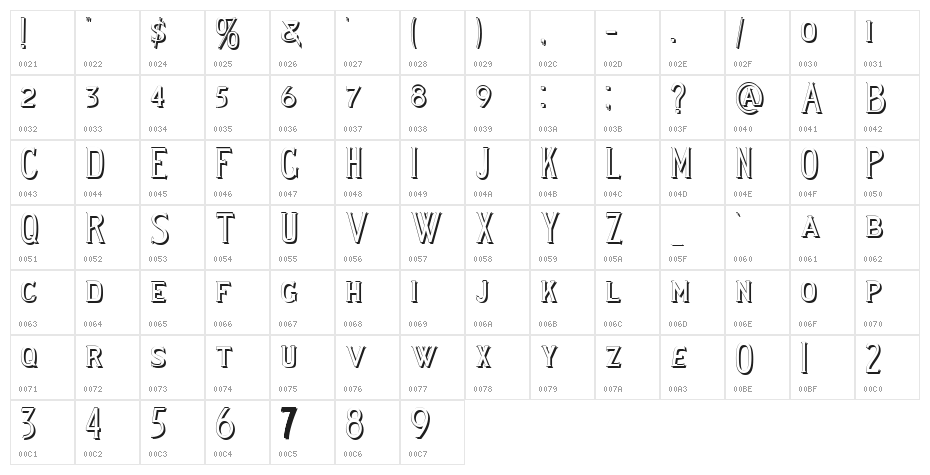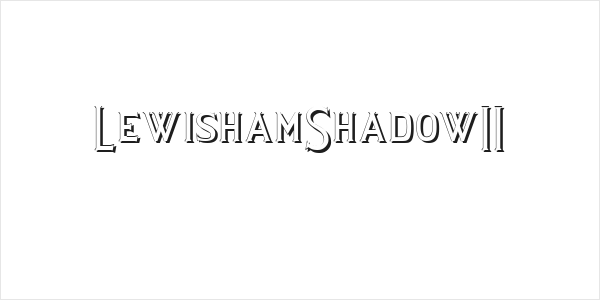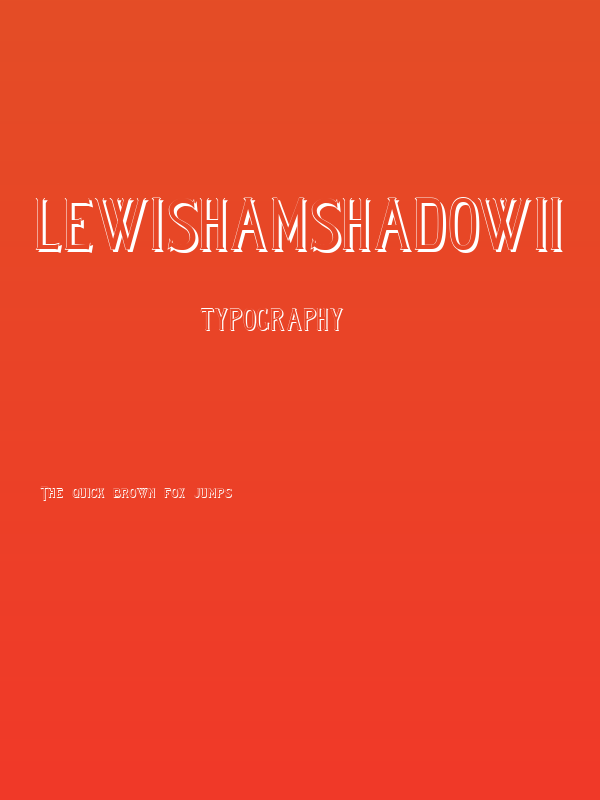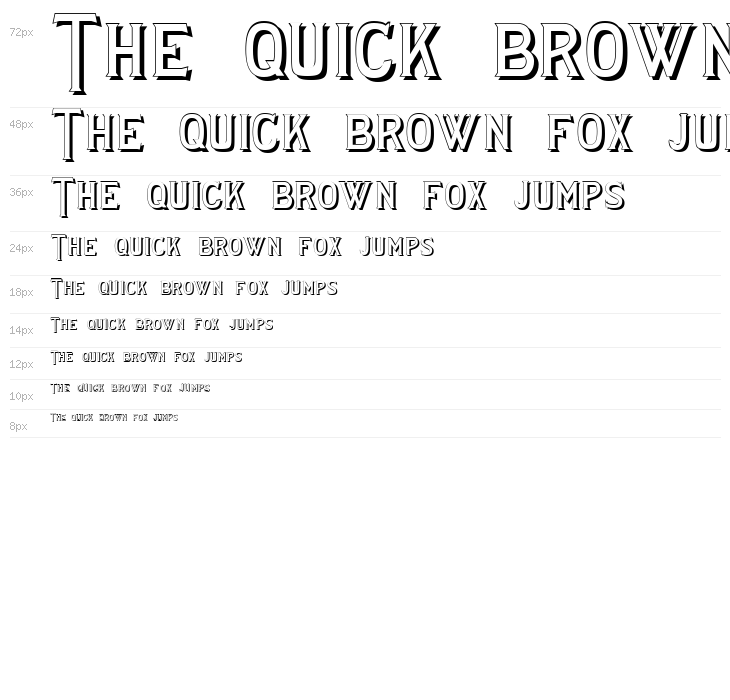
LewishamShadowII Font
LewishamShadowII Description
This font features a bold and striking design with a shadow effect that gives it a three-dimensional appearance. The characters are uppercase and lowercase letters, along with numbers and a selection of special characters. Each letter is crafted with precision, showcasing a modern and innovative style. The shadow effect adds depth, making it ideal for eye-catching designs. The font maintains a consistent weight throughout, ensuring readability while adding a unique flair to any project.
Proposed ProjectsIdeal for headlines, posters, logos, and any design requiring a standout, modern look.